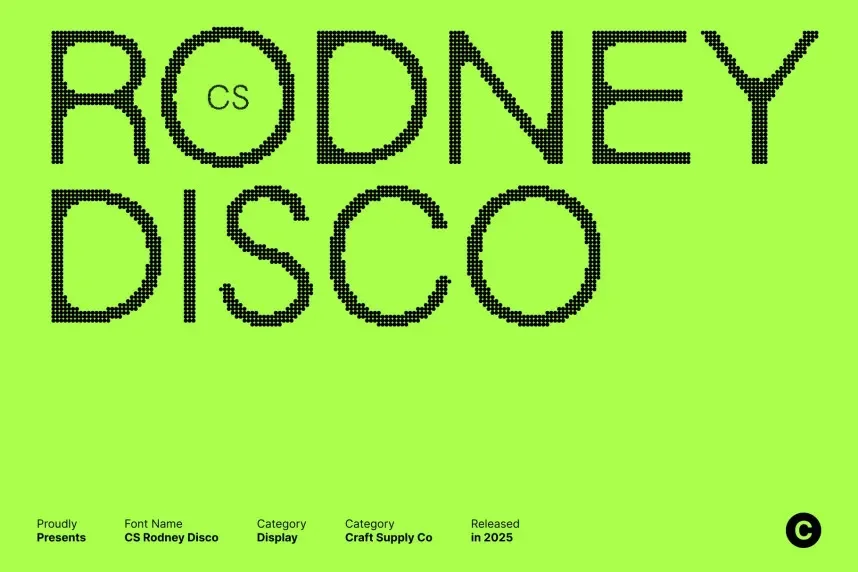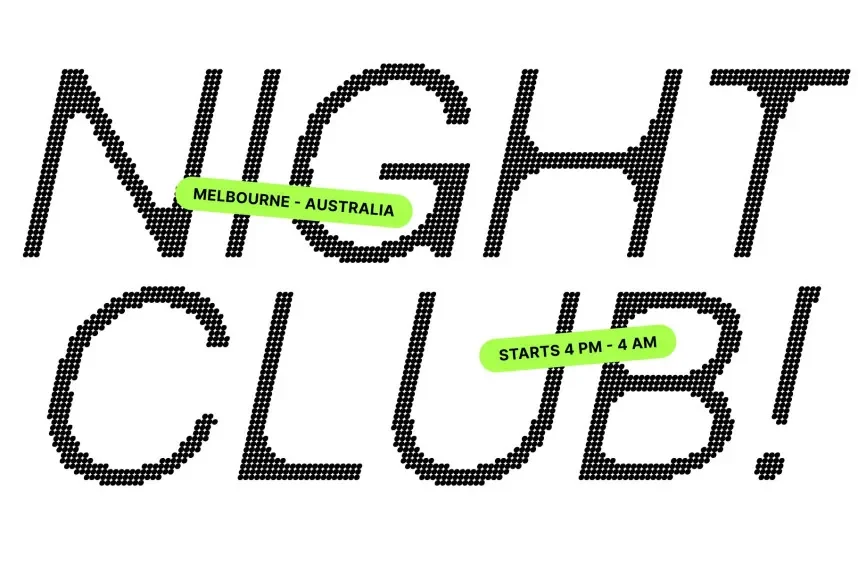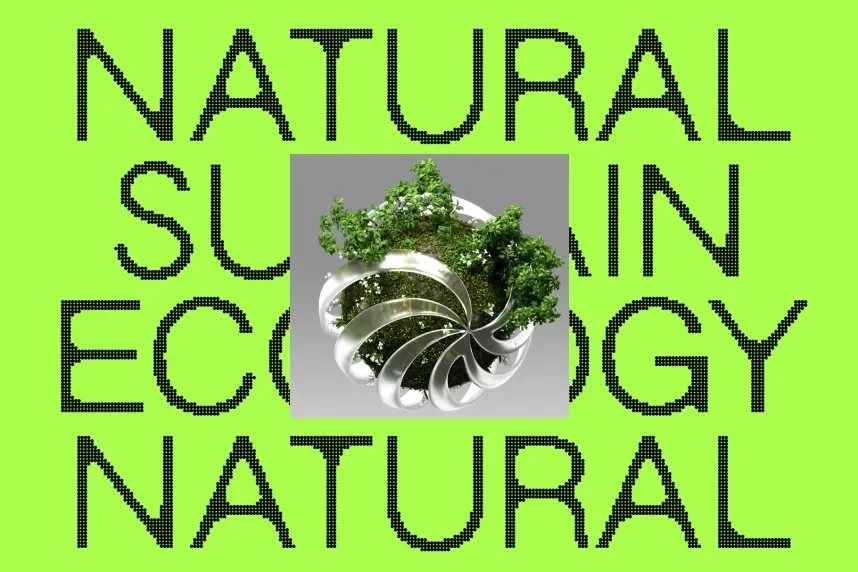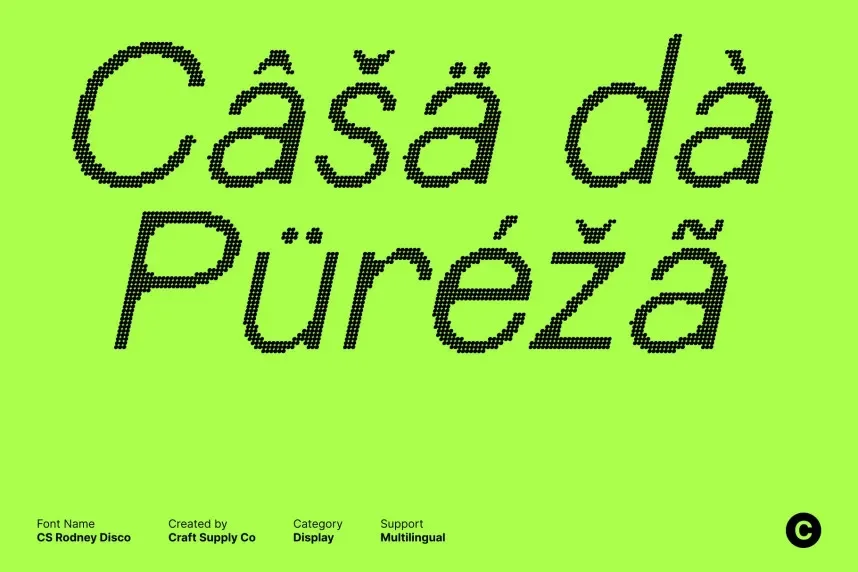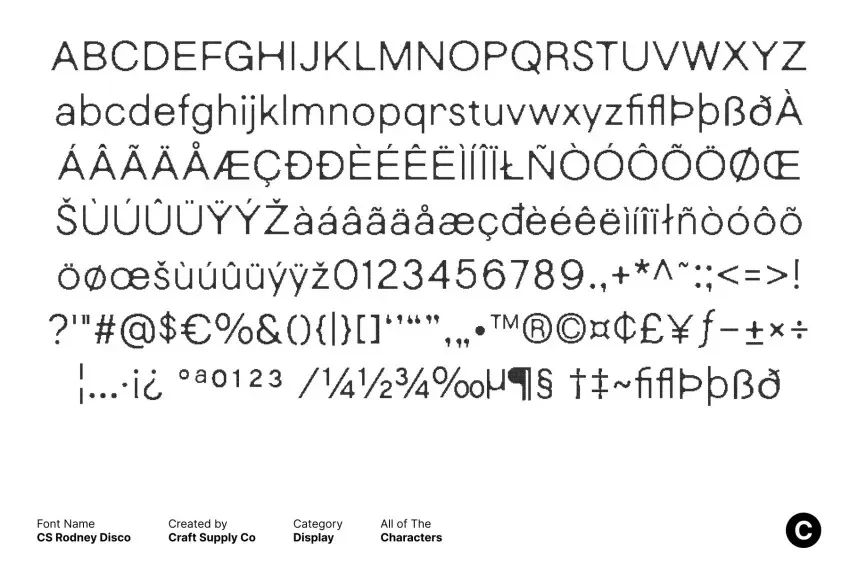
CS Rodney Disco Font is a bold, display font that combines funky, geometric shapes with a modern twist. Its thick strokes and round edges evoke the energetic vibe of the disco era, making it an excellent choice for projects that need to stand out, such as event flyers, posters, and branding.